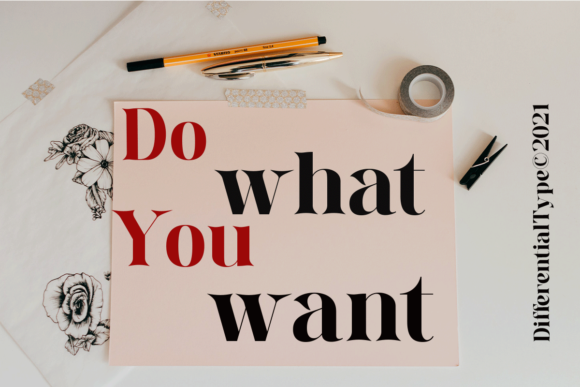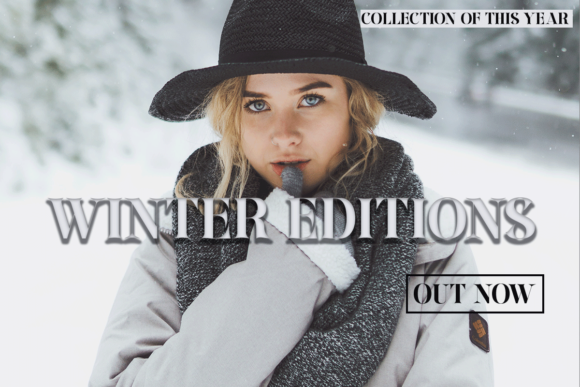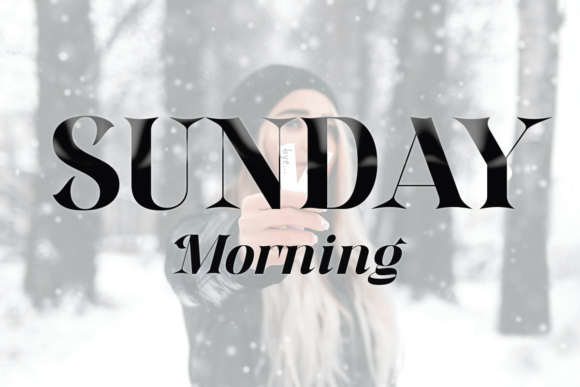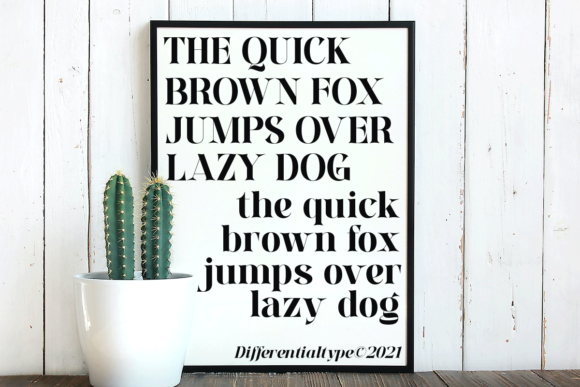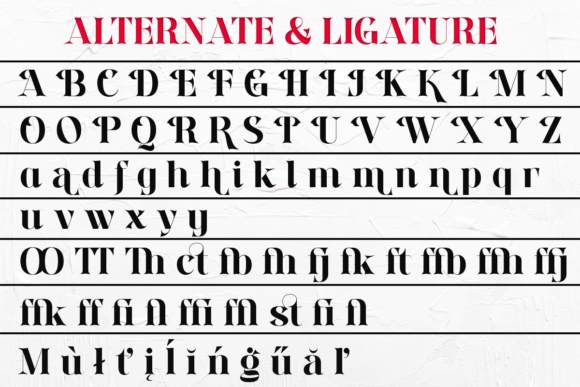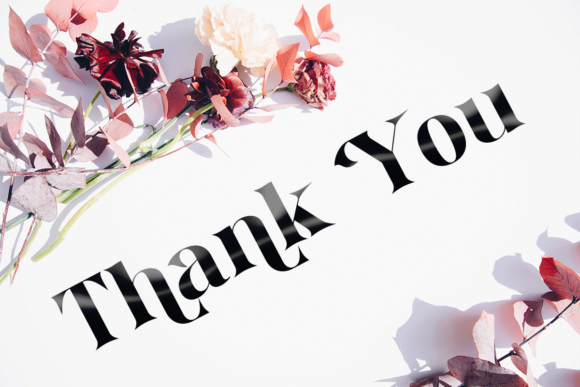
Introduction to Begadul Font
Begadul is an elegant serif font with a contrasting thickness, very suitable for displays such as titles, greeting cards, magazine covers, and many more.
This font will be a great addition to your library, as it will make every design a true piece of art .
Key Features of Begadul Font